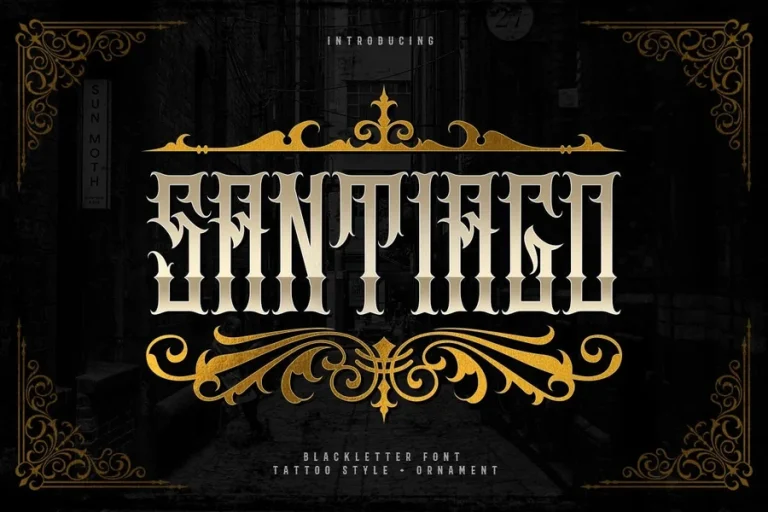
Gangster Font Style for Powerful Urban Design Trends
The gangster font is not a quiet type style. It speaks with strength. It moves with confidence. It carries the raw energy of the streets and turns simple words into powerful statements. When people see gangster font they do not just read the message. They feel it.
Typography is a form of voice. Every letter carries mood and meaning. Gangster font delivers intensity and identity in every stroke. It is the voice of rebellion pride courage and self belief.
This style did not appear in boardrooms or quiet studios. It was born in busy city streets. It grew in neighborhoods filled with music art struggle and ambition. That is why it feels real. That is why people connect with it.
Designers use gangster font when they want their work to feel fearless. They want impact. They want attention. They want emotion.
The History and Cultural Roots of Gangster Font
Gangster font has deep roots in urban culture. Its story begins with graffiti. Artists wrote their names on walls and trains to be seen and heard. Their lettering became their identity. The shapes were bold sharp and dramatic. Every style told a personal story.
Hip hop culture helped spread this visual language. Album covers concert flyers and street posters used strong lettering to match the rhythm of the music. The words looked as powerful as the beats sounded.
Movies and media also played a role. Crime dramas and street films used heavy dramatic fonts for titles and posters. These visuals shaped how people understood gangster style. It became linked with power respect and survival. As technology grew these letterforms moved into digital design. Designers studied graffiti strokes and hand drawn signs then created refined versions for screens and print. The heart of the style remained unchanged. Gangster font today still carries those cultural roots. It represents voice. It represents presence. It represents story.
Why Designers Choose Gangster Font
Designers choose gangster font because it delivers emotion instantly. Without extra decoration the font itself becomes the message. It stands out in crowded spaces. On posters websites banners or social media the strong shapes grab attention. The viewer stops. The message lands.
This font style also creates identity. Brands that use gangster font often want to express strength courage and independence. The font helps communicate those values without words. Another reason designers love this font is its adaptability. It works in music fashion gaming events and entertainment. It also appears in digital art merchandise and branding.
Gangster font creates visual confidence. It makes designs feel bold and unforgettable. In a world full of safe designs this font takes risks. And that is exactly why it works.
How Gangster Font Is Used in Modern Design
In music culture gangster font is everywhere. Album covers mixtape art concert posters and merchandise rely on this style to express sound and soul. The font becomes part of the artist identity. Streetwear brands use gangster font to build strong visual presence. Hoodies shirts hats and sneakers often feature bold lettering. The font supports the culture of self expression and pride.
In digital content gangster font appears in video thumbnails social media graphics and promotional banners. It helps content stand out in fast scrolling feeds. Gaming design also embraces this style. Game logos menus and promotional visuals use gangster font to convey power action and intensity.
Event promotions for battles showcases and underground festivals rely on this font to create excitement and anticipation. When used with care gangster font becomes the centerpiece of any visual story.
The Future of Gangster Font in Creative Culture
The future of gangster font remains strong. As culture continues to influence design this style will keep evolving. New generations bring new energy but the core spirit stays alive.
Designers are blending gangster font with modern techniques. Clean layouts bright colors motion graphics and digital effects. This fusion keeps the style fresh and relevant.
Technology allows fonts to move and react. Animated gangster font in videos and digital ads adds even more impact. It brings the letters to life.
People crave authenticity. Gangster font represents that desire. It feels honest. It feels human. It feels bold. As long as people seek identity and voice this font will continue to thrive.
Final Thoughts on Gangster Font
Gangster font is more than a design trend. It is cultural expression. It is the voice of those who choose to stand out and speak loud.
Every letter carries story and strength. Every word carries presence and power. When designers choose gangster font they choose confidence. They choose emotion. They choose connection.